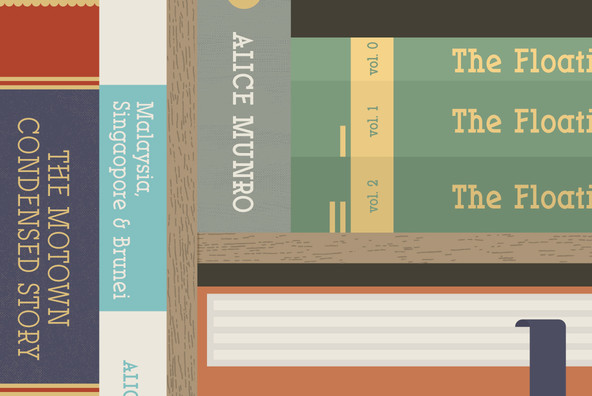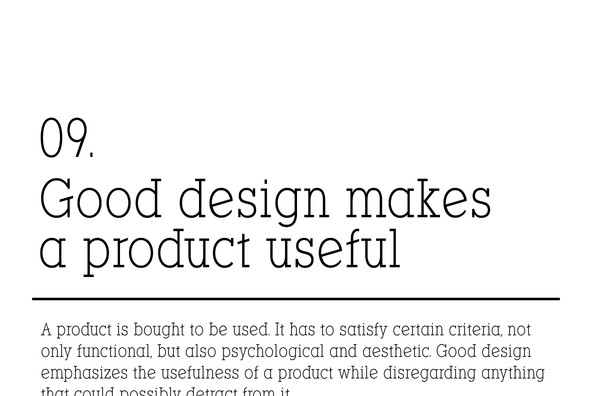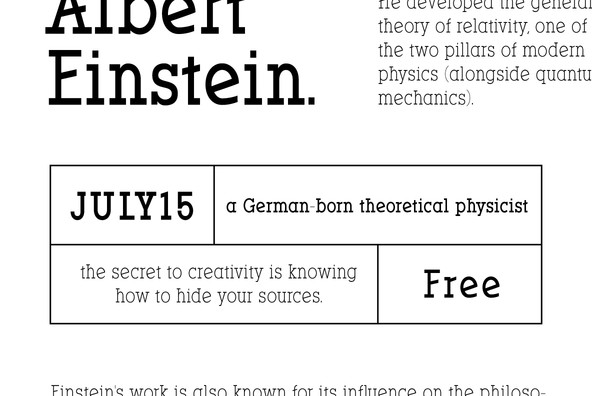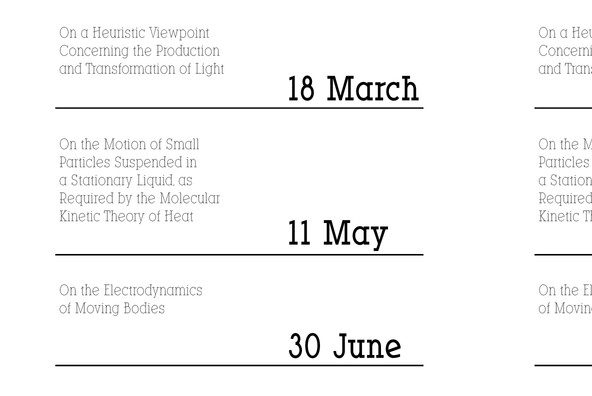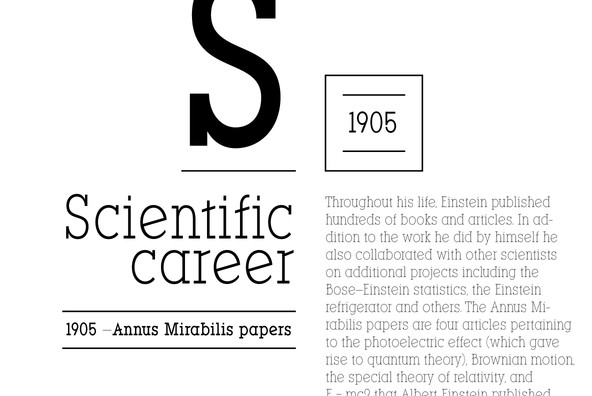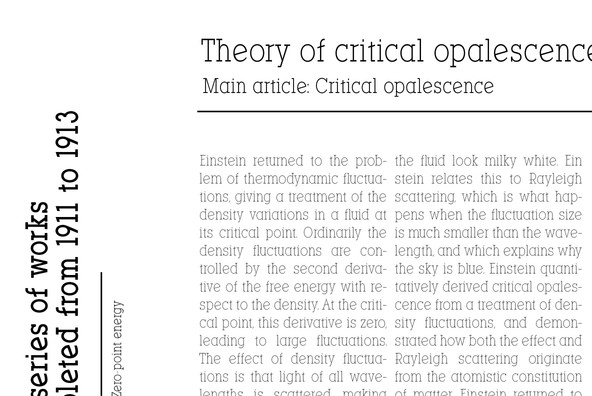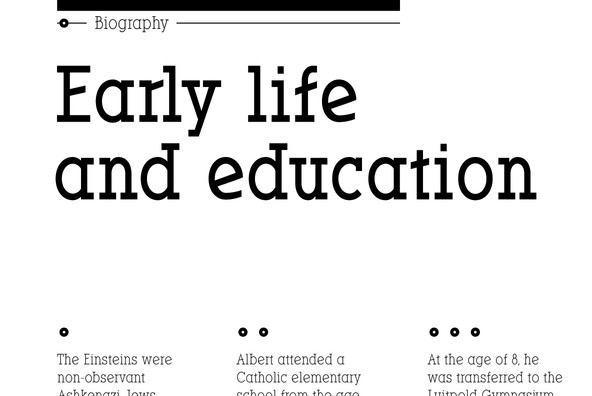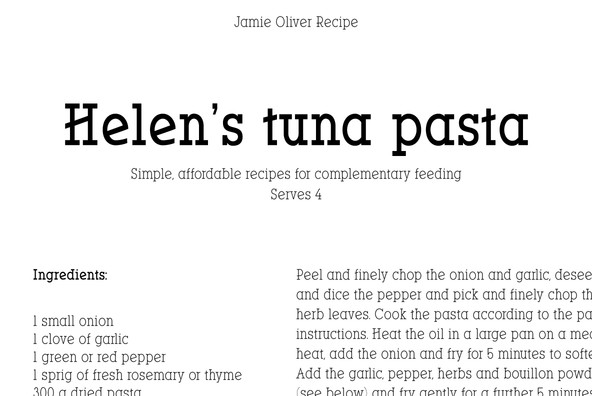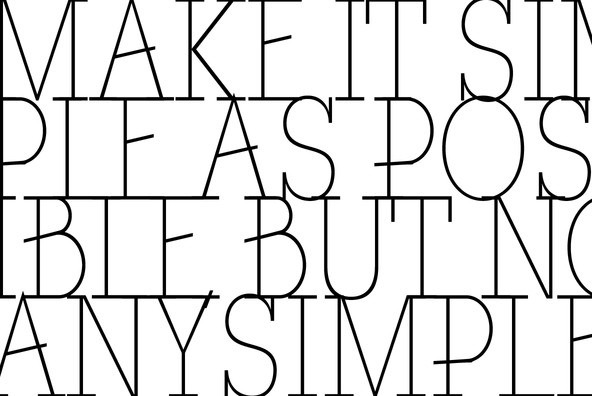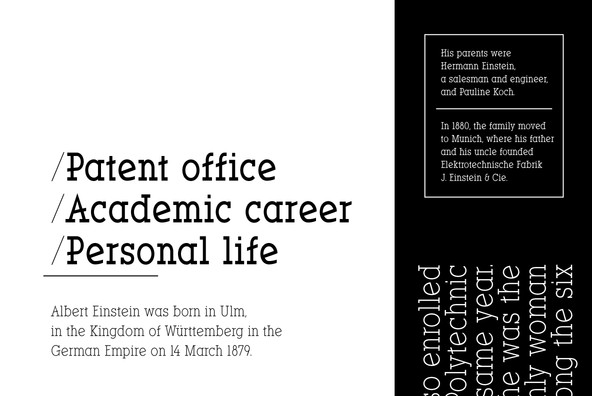
YWFT Motown Condensed is a geometric slab serif that contains a total of 5 weights. Although it was intended to be used as a display face, YWFT Motown Condensed's heavier weights can be used effectively for text as well.
YWFT Motown Condensed is a geometric slab serif that contains a total of 5 weights. Although it was intended to be used as a display face, YWFT Motown Condensed's heavier weights can be used effectively for text as well. The angled crossbars and vertically symmetrical slabs give YWFT Motown Condensed a unique flair for a font of its class. The implied energy in these features also help give the font an athletic, youthful vibe. And it can also look quite classic when set appropriately for headlines, titles, and identities.
YWFT Motown Condensed is based upon YWFT Motown (2009), designed by YouWorkForThem.